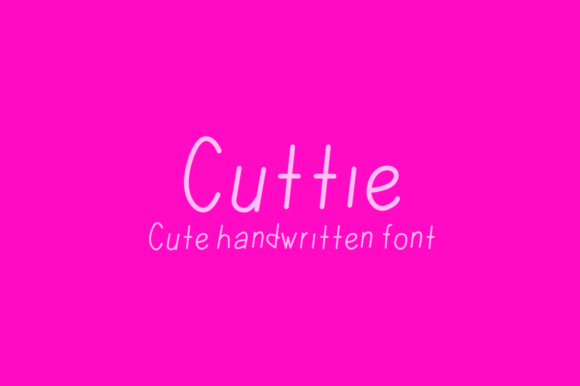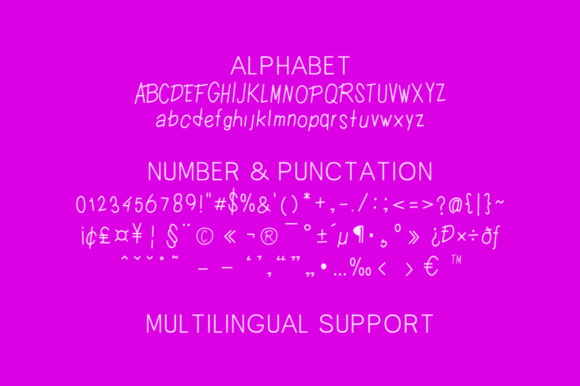
Cuttie is a minimal and dainty handwritten font. Suitable to a wide variety of designs due to its neat and simple style, this font has the potential to become your favorite go-to font, no matter the occasion!